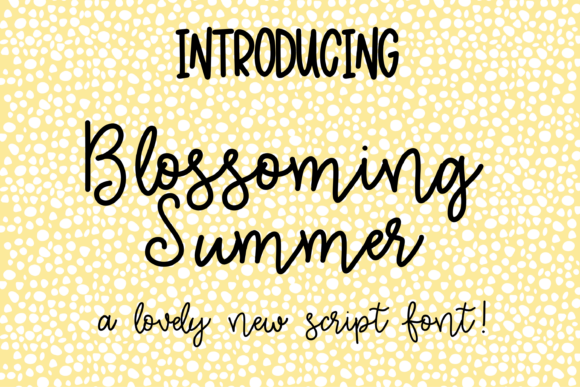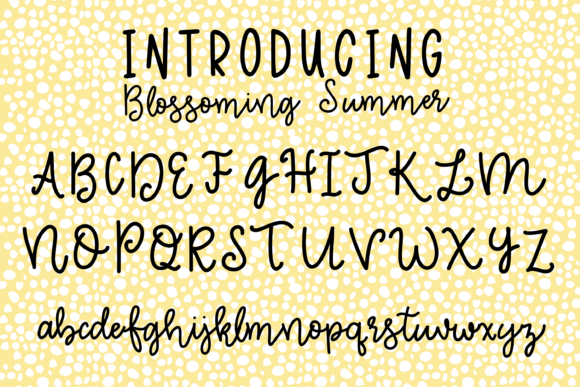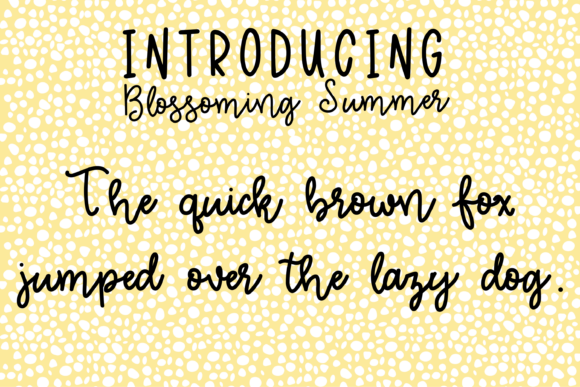
HomeScript FontsBlossoming Summer Font Script Fonts Blossoming Summer Font FacebookXPinterestWhatsApp Blossoming Summer Font Poster 2 Blossoming Summer Font Poster 3 About Blossoming Summer Font Blossoming Summer is a sweet and fun handwritten font with a bold feel. Get inspired by its modern charm! DOWNLOAD ON CREATIVE FABRICAThis font is sold and delivered by Creative Fabrica. Font Canyon may earn a commission if you buy through this link. People also explored Christmas Sleigh Font American Bully Font Valentaines Moment Font Cromartyc Font Coffee Lover Font Absolut Font Perry Soulth Font Creative Vintage Font Christmas Month Font 329 0 TagsBlossoming Summer Font Previous articleWandering Waylon FontNext articleKeshya Font LEAVE A REPLY Cancel reply Comment: Please enter your comment! Name:* Please enter your name here Email:* You have entered an incorrect email address! Please enter your email address here Website: Save my name, email, and website in this browser for the next time I comment. Personal Use Free Yukarimobile Personal Use Free Read more about this font Sheiloria Personal Use Free Read more about this font Splatter Splash Personal Use Free Read more about this font Pan Pizza Personal Use Free Read more about this font BLOG Elegant Wedding Invitation Fonts – Handwritten & Script Fonts Elegant Wedding Invitation Fonts Your wedding day is one of the most important moments of your life, and every detail matters—including your invitation design. Our... Modern Sans-Serif Fonts That Brands Love in 2025 Exploring Font Trends Best Fonts for T-Shirt Design – Top 2025 Picks